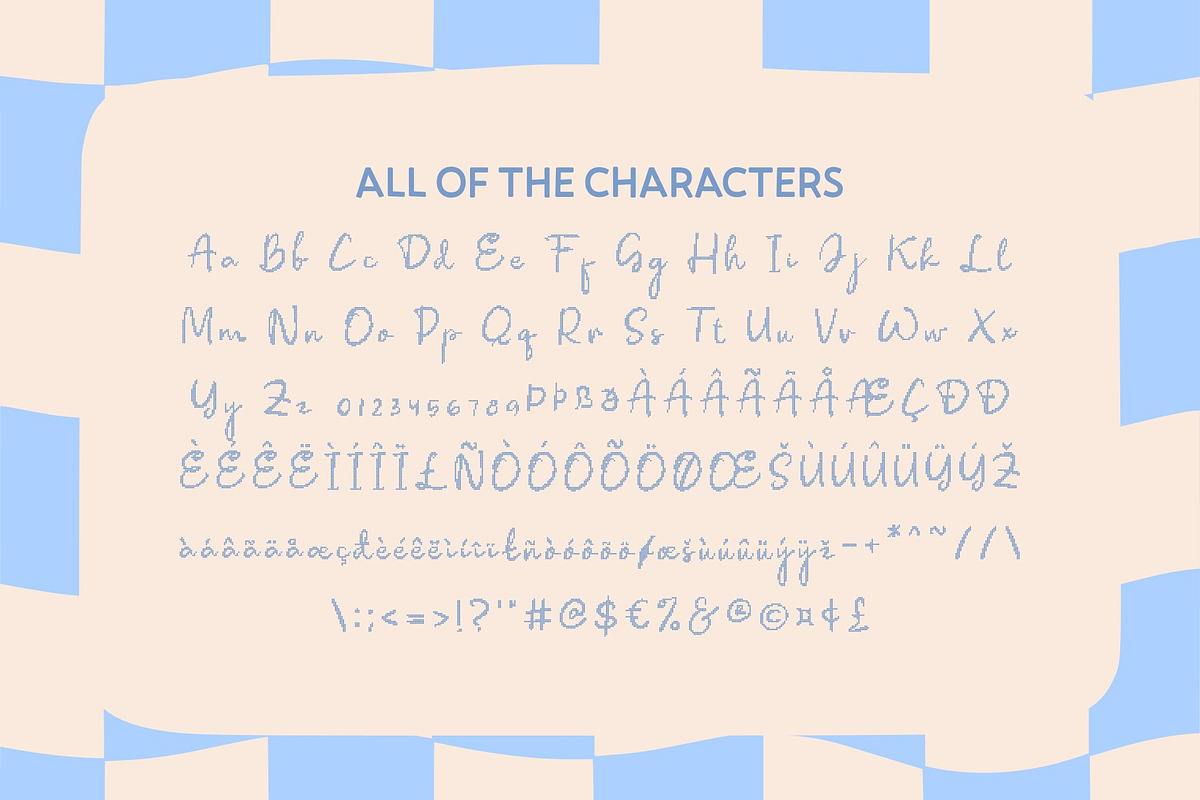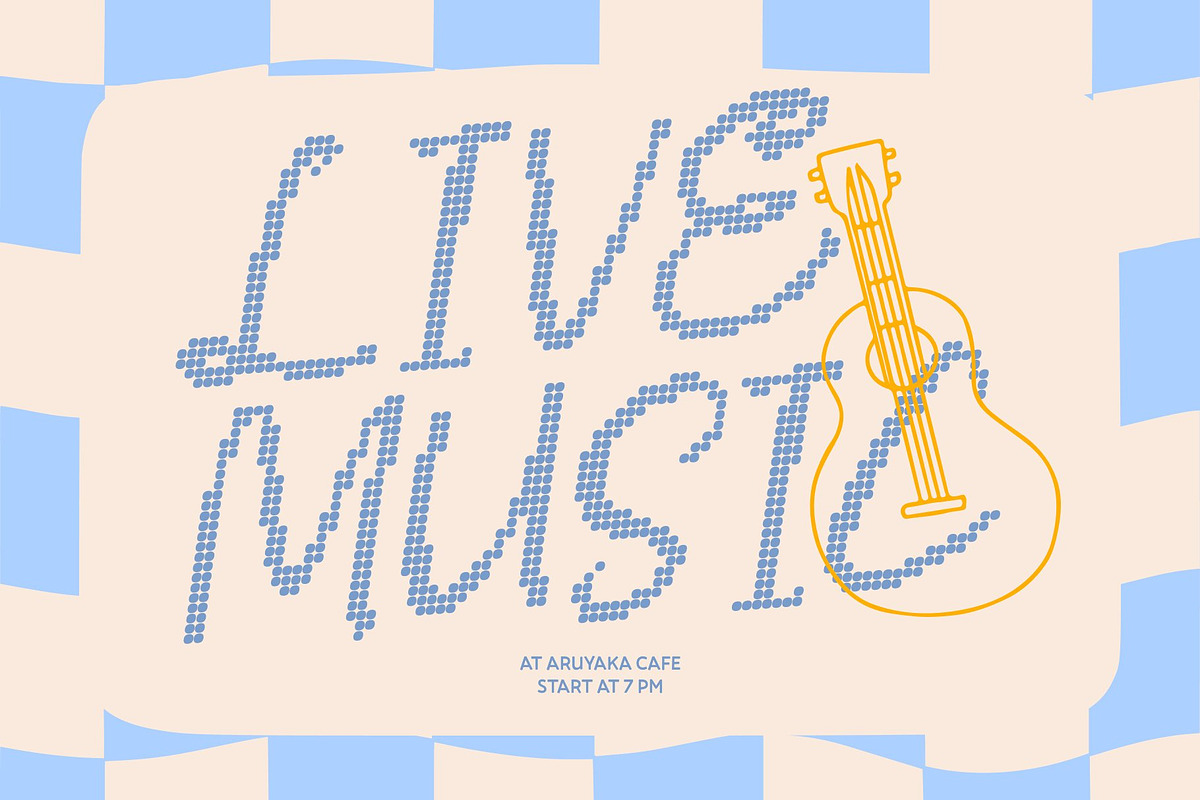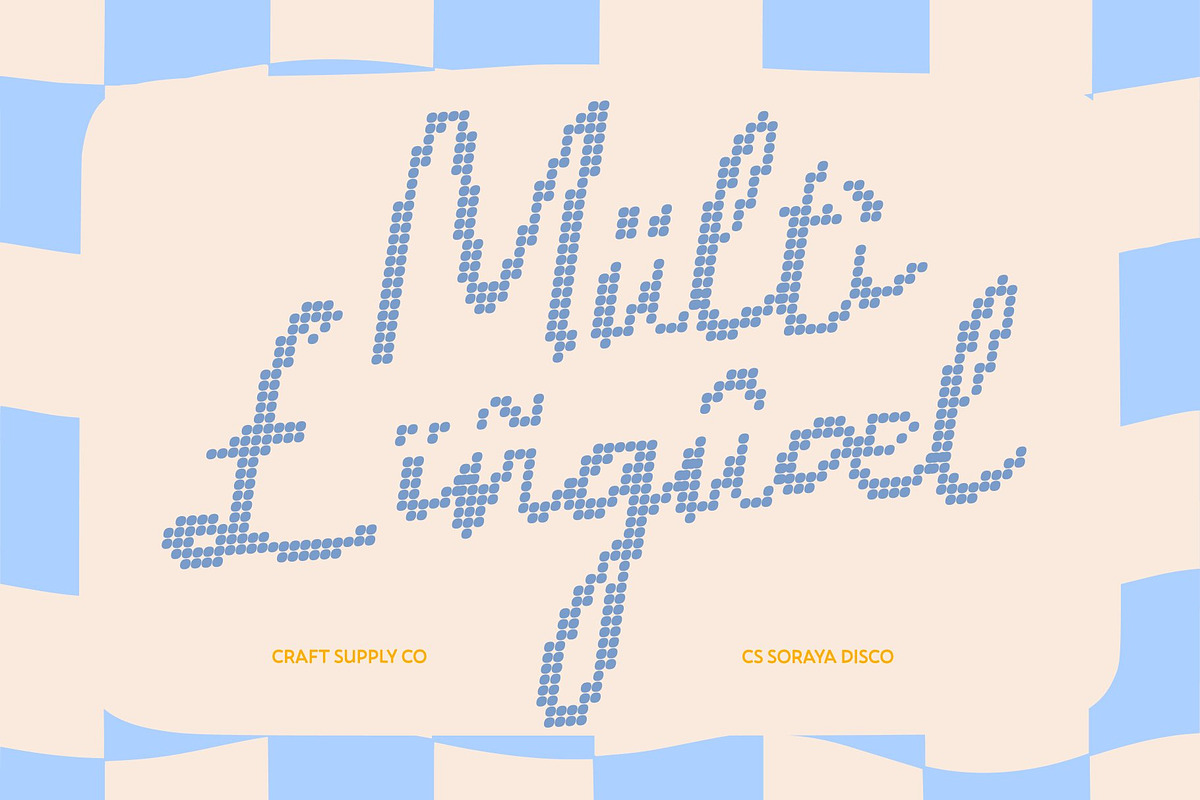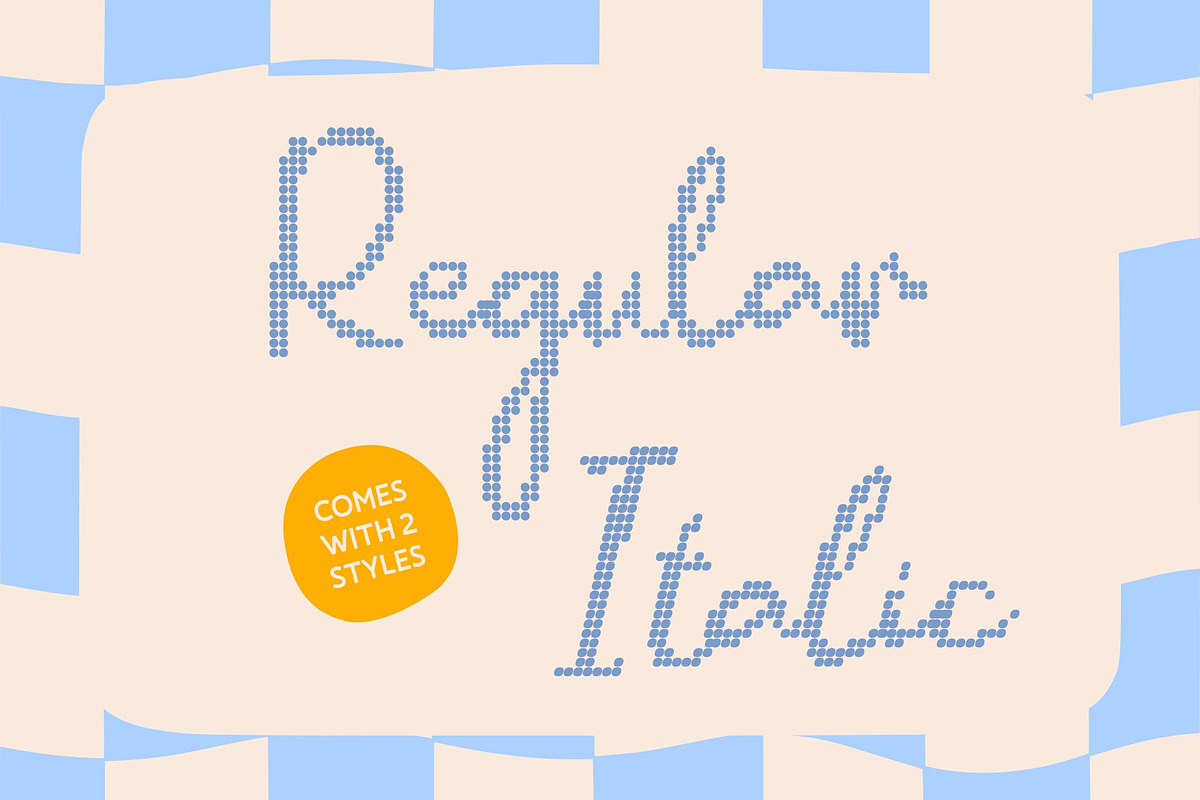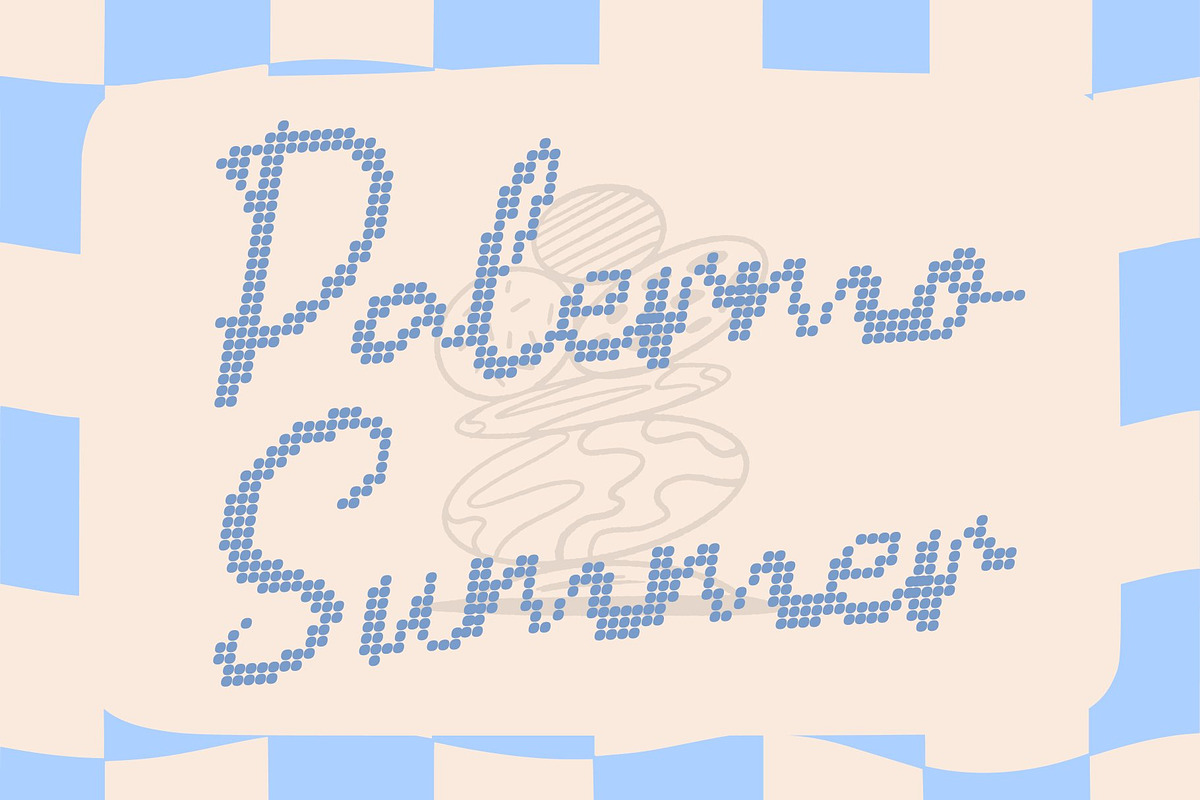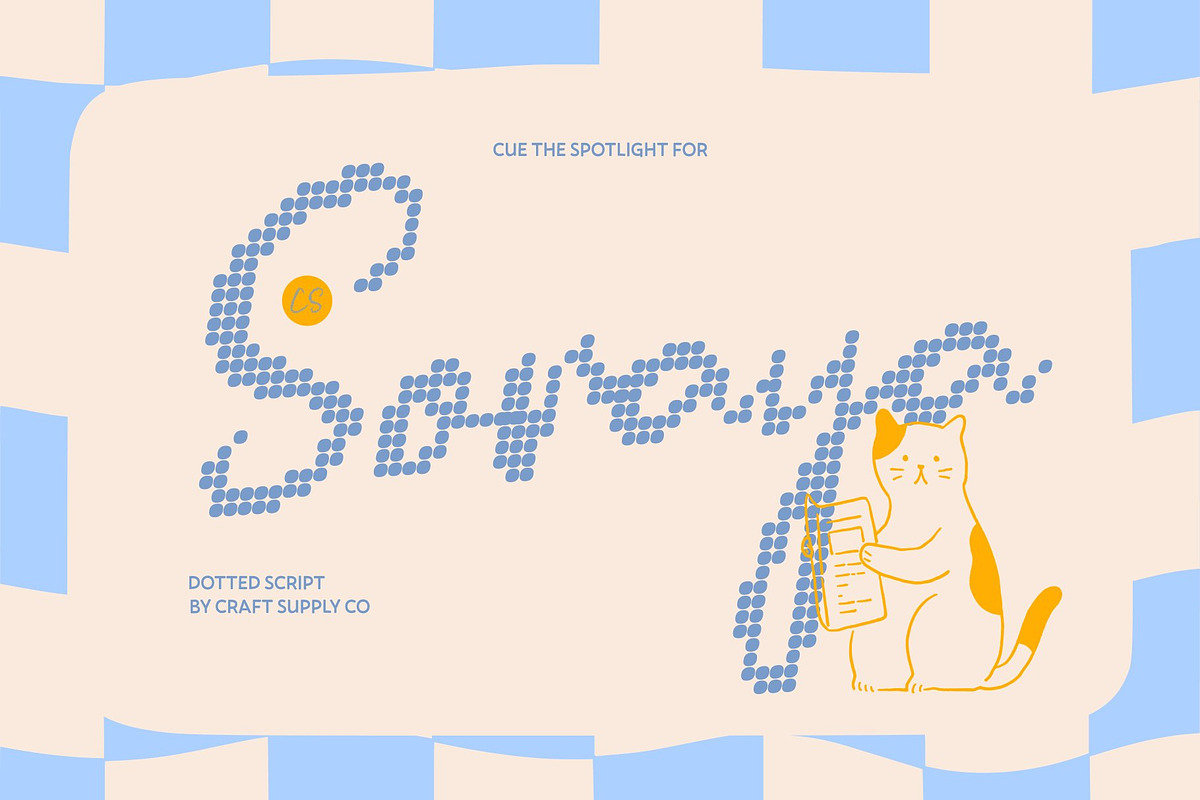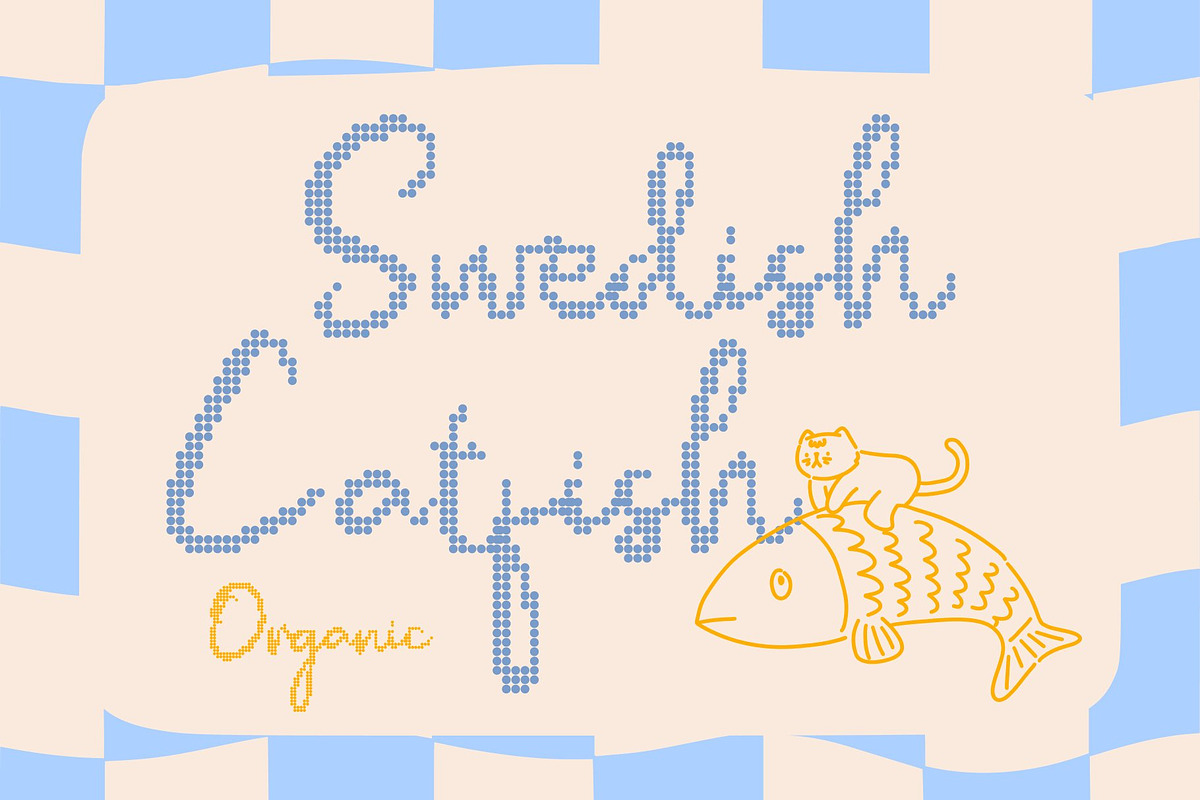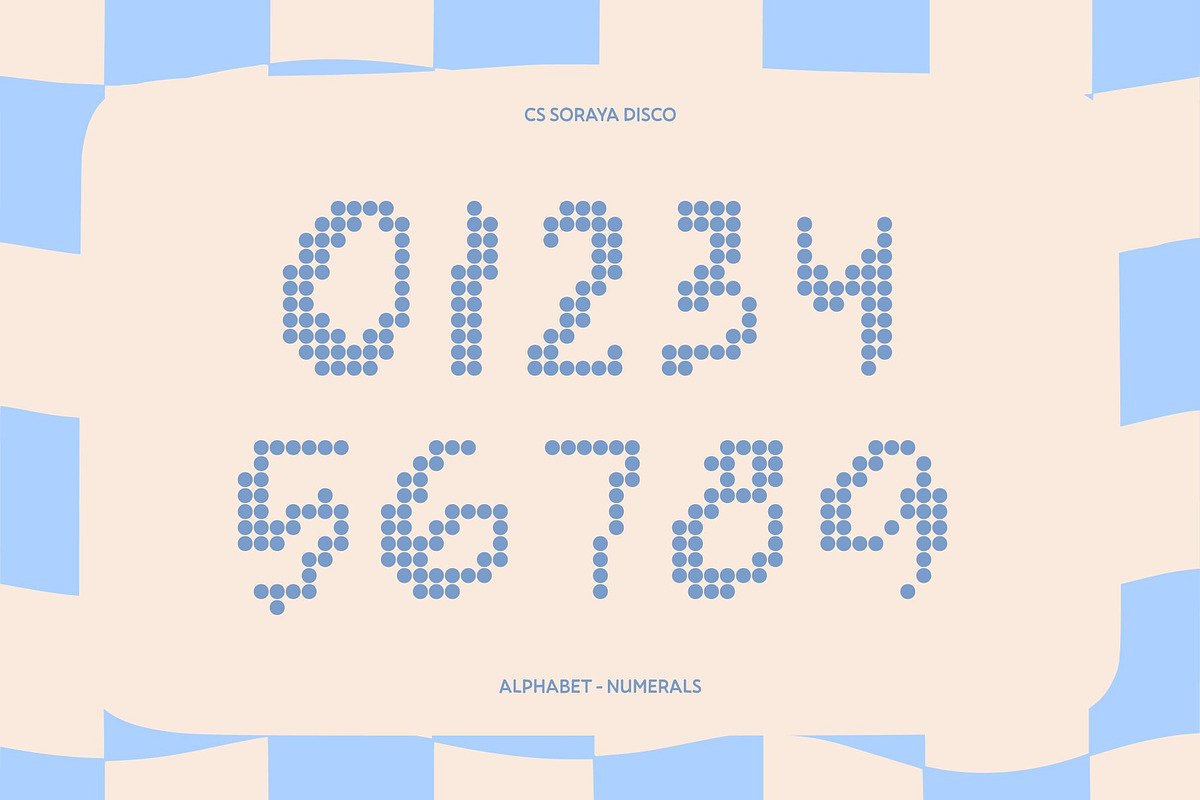
CS Soraya Disco
CS Soraya Disco – Vacay Script with Sparkling Holiday Energy
Carefree Script Meets Disco Glow This transforms the relaxed vacation script style into a dazzling disco-inspired typeface. The flowing handwritten strokes are reimagined with lively dotted textures, capturing the sparkle of beach parties, sunset festivals, and joyful summer nights.
Smooth Curves with Playful Light Rhythm Every letter keeps its fluid movement and natural connections, now built from rhythmic dot patterns that resemble glowing lights. This dotted construction adds a festive shimmer while preserving the font’s effortless handwritten charm and readability.
Cheerful, Warm, and Full of Positivity Inspired by travel escapes and dance-floor vibes, the font radiates happiness and freedom. Its light, spontaneous personality makes every word feel upbeat and celebratory perfect for designs that want to spread sunshine and good vibes.
Perfect for Summer Branding and Event Graphics Ideal for social media, travel branding, beach events, packaging, posters, and lifestyle campaigns, this font delivers a vibrant and friendly tone. It adds personality and sparkle while keeping a relaxed, approachable feel.